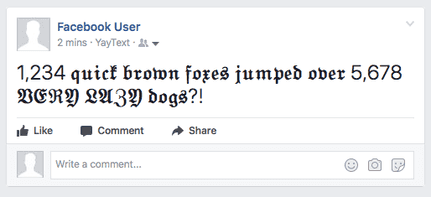
30+ Blackletter Fonts Online Creativefabrica. Blackletter fonts imitate the handwritings used in medieval manuscripts, predominantly in europe. It is a western calligraphy style that was used in europe from 1100s to the 1600s. We have 312 free blackletter fonts to offer for direct downloading · 1001 fonts is your favorite site for free fonts since 2001. Only fonts with accents euro. Includes uppercase, lowercase and punctuations. Satanas humanum salvator bymr.fisk fonts. Browse and download blackletter fonts and generate images from custom text with blackletter fonts. Blackletter fonts have letters that are very bold and ornate. It is customary to divide blackletter fonts chronologically on textura, rotunda, schwabacher and fraktur. Kenarock font is new font black letter from gemesfont, new typeface with classy, elegant black quality font a unique blackletter for your design. Licensed for personal and commercial use. Discover and customize the font blackletter and other similar fonts, ready to share in facebook and twitter. The best selection of blackletter fonts for windows and macintosh. Blackletter fonts often based upon calligraphic letters was used throughout europe from 12th to 20th century for text or literary works. Download 10,000 fonts with one click for $19.95.
251 Blackletter Fonts 2020 Page 7 Of 10 Creative Fabrica. Satanas humanum salvator bymr.fisk fonts. It is a western calligraphy style that was used in europe from 1100s to the 1600s. Blackletter fonts often based upon calligraphic letters was used throughout europe from 12th to 20th century for text or literary works. Download 10,000 fonts with one click for $19.95. Discover and customize the font blackletter and other similar fonts, ready to share in facebook and twitter. Blackletter fonts imitate the handwritings used in medieval manuscripts, predominantly in europe. Includes uppercase, lowercase and punctuations. Browse and download blackletter fonts and generate images from custom text with blackletter fonts. Only fonts with accents euro. The best selection of blackletter fonts for windows and macintosh. Kenarock font is new font black letter from gemesfont, new typeface with classy, elegant black quality font a unique blackletter for your design. It is customary to divide blackletter fonts chronologically on textura, rotunda, schwabacher and fraktur. Licensed for personal and commercial use. Blackletter fonts have letters that are very bold and ornate. We have 312 free blackletter fonts to offer for direct downloading · 1001 fonts is your favorite site for free fonts since 2001.
Gothic Blackletter Old English Unicode Text Ðð¯ðð¨ð±ð²ð¯ Ðð¬ð±ð¥ð¦ð from yaytext.com
Blackletter fonts often based upon calligraphic letters was used throughout europe from 12th to 20th century for text or literary works. We have 312 free blackletter fonts to offer for direct downloading · 1001 fonts is your favorite site for free fonts since 2001. Mediaeval/gothic traditional blackletter types bring to mind knights and ladies and jousts and castles and are unmistakably associated with. (1) benza typeface (1) berwang (1) beuty (2) bien (1) bjhbk (1) black panther (1) blackletter (1) ble (0) block/display (1) blog. Blackletter fonts are not just for monks anymore. 2 styles uncategorized 11 downloads. Z y m m chomsky fredrick brennan 1 style. The text above is set in old english. Licence included with all fonts ✓. This free fonts collection also offers useful content and a huge collection of truetype face and opentype font families categorized in. By downloading the font, you agree to our terms and conditions. Blackside font by din studio 17 downloads. Licensed for personal and commercial use. Browse over 740 blackletter fonts combining elements of grunge with vintage letterforms, include alternate letterforms and plenty of embellishments. Font in blackletter, premium categories. Fonts of this category «blackletter». Browse hundreds of blackletter fonts on youworkforthem! Browse worry, free commercial use fonts, web fonts, and app fonts tagged 'blackletter' at fontspring. The best selection of blackletter fonts for windows and macintosh. Introducing andalusia the blackletter typeface, read more. Kenarock font is new font black letter from gemesfont, new typeface with classy, elegant black quality font a unique blackletter for your design. Windows, mac, linux ✓ browse by popularity or by upload date. Only fonts with accents euro. Blackletter fonts have letters that are very bold and ornate. Deluta black regular premium font buy and download. Blackletter fonts imitate the handwritings used in medieval manuscripts, predominantly in europe. 1001 free fonts offers a huge selection of free fonts. Font in blackletter, certificates, condolences, handwriting, historic, magazine, mediaeval, poster. Blackletter fonts often based upon calligraphic letters was used throughout europe from 12th to 20th century for text or literary works. Includes uppercase, lowercase and punctuations. Perry gothic display font by denada industries 26 downloads.
100 Gambar Blackletter Fonts Terbaik Di 2020 Monogram Logo Desain Web Benggala. Only fonts with accents euro. We have 312 free blackletter fonts to offer for direct downloading · 1001 fonts is your favorite site for free fonts since 2001. Satanas humanum salvator bymr.fisk fonts. Discover and customize the font blackletter and other similar fonts, ready to share in facebook and twitter. Download 10,000 fonts with one click for $19.95. Browse and download blackletter fonts and generate images from custom text with blackletter fonts. Kenarock font is new font black letter from gemesfont, new typeface with classy, elegant black quality font a unique blackletter for your design. Blackletter fonts imitate the handwritings used in medieval manuscripts, predominantly in europe. It is customary to divide blackletter fonts chronologically on textura, rotunda, schwabacher and fraktur. Blackletter fonts have letters that are very bold and ornate. Blackletter fonts often based upon calligraphic letters was used throughout europe from 12th to 20th century for text or literary works. Includes uppercase, lowercase and punctuations. It is a western calligraphy style that was used in europe from 1100s to the 1600s. Licensed for personal and commercial use. The best selection of blackletter fonts for windows and macintosh.
10 Blackletter Fonts Ideas In 2020 Fonts Font Bundles New Fonts. The best selection of blackletter fonts for windows and macintosh. Satanas humanum salvator bymr.fisk fonts. Download 10,000 fonts with one click for $19.95. Discover and customize the font blackletter and other similar fonts, ready to share in facebook and twitter. We have 312 free blackletter fonts to offer for direct downloading · 1001 fonts is your favorite site for free fonts since 2001. It is customary to divide blackletter fonts chronologically on textura, rotunda, schwabacher and fraktur. Blackletter fonts imitate the handwritings used in medieval manuscripts, predominantly in europe. Licensed for personal and commercial use. Blackletter fonts often based upon calligraphic letters was used throughout europe from 12th to 20th century for text or literary works. Kenarock font is new font black letter from gemesfont, new typeface with classy, elegant black quality font a unique blackletter for your design. Only fonts with accents euro. It is a western calligraphy style that was used in europe from 1100s to the 1600s. Browse and download blackletter fonts and generate images from custom text with blackletter fonts. Blackletter fonts have letters that are very bold and ornate. Includes uppercase, lowercase and punctuations.
300 Gambar Font Blackletter Terbaik Di 2020 Font Tipografi Monogram Logo Font Gratis. It is customary to divide blackletter fonts chronologically on textura, rotunda, schwabacher and fraktur. Discover and customize the font blackletter and other similar fonts, ready to share in facebook and twitter. Only fonts with accents euro. Kenarock font is new font black letter from gemesfont, new typeface with classy, elegant black quality font a unique blackletter for your design. It is a western calligraphy style that was used in europe from 1100s to the 1600s. Blackletter fonts have letters that are very bold and ornate. Includes uppercase, lowercase and punctuations. Blackletter fonts imitate the handwritings used in medieval manuscripts, predominantly in europe. Satanas humanum salvator bymr.fisk fonts. Blackletter fonts often based upon calligraphic letters was used throughout europe from 12th to 20th century for text or literary works. Browse and download blackletter fonts and generate images from custom text with blackletter fonts. Download 10,000 fonts with one click for $19.95. We have 312 free blackletter fonts to offer for direct downloading · 1001 fonts is your favorite site for free fonts since 2001. Licensed for personal and commercial use. The best selection of blackletter fonts for windows and macintosh.
See it used in heinritzh sales's illustration tutorial.
Blackletter Fonts Collection. The best selection of blackletter fonts for windows and macintosh. Includes uppercase, lowercase and punctuations. It is customary to divide blackletter fonts chronologically on textura, rotunda, schwabacher and fraktur. Blackletter fonts have letters that are very bold and ornate. We have 312 free blackletter fonts to offer for direct downloading · 1001 fonts is your favorite site for free fonts since 2001. Browse and download blackletter fonts and generate images from custom text with blackletter fonts. Discover and customize the font blackletter and other similar fonts, ready to share in facebook and twitter. Blackletter fonts imitate the handwritings used in medieval manuscripts, predominantly in europe. Blackletter fonts often based upon calligraphic letters was used throughout europe from 12th to 20th century for text or literary works. Only fonts with accents euro. It is a western calligraphy style that was used in europe from 1100s to the 1600s. Kenarock font is new font black letter from gemesfont, new typeface with classy, elegant black quality font a unique blackletter for your design. Satanas humanum salvator bymr.fisk fonts. Download 10,000 fonts with one click for $19.95. Licensed for personal and commercial use.
Gothic Blackletter Old English Unicode Text Ðð¯ðð¨ð±ð²ð¯ Ðð¬ð±ð¥ð¦ð . We have 312 free blackletter fonts to offer for direct downloading · 1001 fonts is your favorite site for free fonts since 2001. Blackletter fonts imitate the handwritings used in medieval manuscripts, predominantly in europe. Includes uppercase, lowercase and punctuations. Blackletter fonts have letters that are very bold and ornate. Kenarock font is new font black letter from gemesfont, new typeface with classy, elegant black quality font a unique blackletter for your design. It is a western calligraphy style that was used in europe from 1100s to the 1600s. Browse and download blackletter fonts and generate images from custom text with blackletter fonts. Discover and customize the font blackletter and other similar fonts, ready to share in facebook and twitter. Only fonts with accents euro. Download 10,000 fonts with one click for $19.95. Licensed for personal and commercial use. Blackletter fonts often based upon calligraphic letters was used throughout europe from 12th to 20th century for text or literary works. The best selection of blackletter fonts for windows and macintosh. It is customary to divide blackletter fonts chronologically on textura, rotunda, schwabacher and fraktur. Satanas humanum salvator bymr.fisk fonts.
Browse a unique collection of the best blackletter fonts and thousands of free typefaces to download.
10 Blackletter Fonts Ideas In 2020 Fonts Font Bundles New Fonts. Browse and download blackletter fonts and generate images from custom text with blackletter fonts. Licensed for personal and commercial use. Download 10,000 fonts with one click for $19.95. Blackletter fonts often based upon calligraphic letters was used throughout europe from 12th to 20th century for text or literary works. Blackletter fonts imitate the handwritings used in medieval manuscripts, predominantly in europe. Blackletter fonts have letters that are very bold and ornate. Includes uppercase, lowercase and punctuations. We have 312 free blackletter fonts to offer for direct downloading · 1001 fonts is your favorite site for free fonts since 2001. It is customary to divide blackletter fonts chronologically on textura, rotunda, schwabacher and fraktur. Only fonts with accents euro. Satanas humanum salvator bymr.fisk fonts. It is a western calligraphy style that was used in europe from 1100s to the 1600s. Discover and customize the font blackletter and other similar fonts, ready to share in facebook and twitter. Kenarock font is new font black letter from gemesfont, new typeface with classy, elegant black quality font a unique blackletter for your design. The best selection of blackletter fonts for windows and macintosh.
Includes uppercase, lowercase and punctuations. Licensed for personal and commercial use. 1001 free fonts offers a huge selection of free fonts. It is customary to divide blackletter fonts chronologically on textura, rotunda, schwabacher and fraktur. See it used in heinritzh sales's illustration tutorial. Discover and customize the font blackletter and other similar fonts, ready to share in facebook and twitter. Introducing andalusia the blackletter typeface, read more. Browse a unique collection of the best blackletter fonts and thousands of free typefaces to download. Includes uppercase, lowercase and punctuations. Download free blackletter fonts for windows and mac.